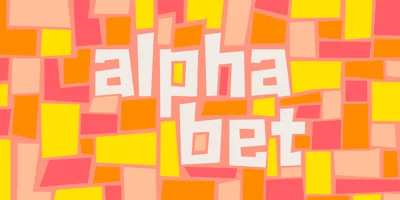
Fido Font
The Fido Font is excellent for pet supply stores, dog grooming salons, veterinary clinic branding, animal shelter promotions, dog training facilities, pet-friendly restaurant signage, canine boarding services, and loyal companion product packaging. This friendly typeface works wonderfully in applications where pet loyalty and canine companionship need to be emphasized, making it perfect for pet businesses that want to communicate unconditional love and faithful friendship through warm, dog-inspired typography.
What makes Fido Font exciting is its loyal companionship and faithful character that captures the essence of canine devotion and unconditional pet love. The font's friendly letterforms and dog-inspired design create an atmosphere of warmth and trustworthy companionship, making it ideal for brands that want to celebrate the special bond between humans and their faithful four-legged friends. Its loving presence ensures that every application feels like a tail-wagging welcome with genuine pet authenticity and heartwarming appeal.
The Fido Font family typically includes regular, medium, and bold weights, often featuring playful elements, paw print symbols, and canine motifs that enhance its pet-friendly appeal. Many versions include dog bone decorations, collar tags, and specialized characters that provide designers with comprehensive tools for creating authentic pet-themed design projects with genuine animal companionship sophistication and loyal friendship excellence.
For designers working on projects that require pet authenticity and canine credibility, Fido Font provides exceptional companion appeal. Its ability to instantly communicate loyalty and pet friendship makes it an invaluable choice for pet businesses, animal organizations, and any project requiring typography that embodies the faithful devotion of canine companions, the warmth of pet friendship, and the heartwarming appeal of unconditional animal love and loyal companionship.